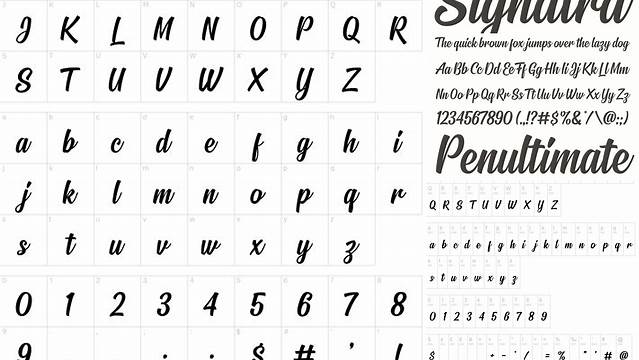
Signatra Font: Free Download And Usage Guide
Hey guys! Are you on the hunt for that perfect signature font to add a touch of elegance and personality to your designs? Well, you've come to the right place! In this comprehensive guide, we're diving deep into the world of Signatra font free download, exploring everything you need to know about this stylish typeface and how to get your hands on it. From its versatile uses to its stunning aesthetics, Signatra is a font that can truly elevate your creative projects. Whether you're designing logos, wedding invitations, or even just jazzing up your website, a great signature font like Signatra can make all the difference. We'll walk you through what makes Signatra so special, where you can find it for free (and legally!), and how to use it effectively in your designs. So, buckle up and let's get started on this font-astic journey! Remember, the right font can transform a good design into a great one, and Signatra might just be the secret ingredient you've been looking for. We'll also touch on some tips and tricks for ensuring you're using the font in the best possible way, avoiding common pitfalls and maximizing its impact. By the end of this guide, you'll be a Signatra pro, ready to unleash its potential in all your creative endeavors. So, let’s jump in and discover how Signatra font free download can revolutionize your design game!
What Makes Signatra Font So Special?
So, what exactly makes Signatra font stand out from the crowd? There are several key factors that contribute to its popularity and versatility. First and foremost, Signatra boasts a beautifully flowing, script-like design that mimics the elegance of handwritten signatures. This gives it a personal and sophisticated touch, making it ideal for projects that require a touch of class and authenticity. Think about it – a well-crafted signature font can instantly convey trust, style, and attention to detail. This is particularly crucial in branding, where the visual identity speaks volumes about the company or individual it represents. The flowing curves and unique letterforms of Signatra create a memorable and impactful impression. Beyond its aesthetics, Signatra font is also incredibly versatile. It works well in a variety of contexts, from formal invitations and business cards to social media graphics and website headers. This adaptability is a huge advantage, as it allows you to maintain a consistent brand identity across different platforms and mediums. Imagine using Signatra for your logo, your email signature, and even your marketing materials – the cohesive look and feel will strengthen your brand recognition and create a professional image. Furthermore, Signatra’s legibility is another factor contributing to its appeal. While some script fonts can be difficult to read, especially in smaller sizes, Signatra strikes a perfect balance between style and clarity. This ensures that your message is not only visually appealing but also easily understood. Whether you're using it for body text or headlines, the readability of Signatra font remains consistent. This is especially important in web design, where user experience is paramount. Nobody wants to squint and struggle to decipher a fancy font! Finally, the emotional connection that Signatra evokes is something to consider. A well-designed script font can elicit feelings of warmth, nostalgia, and trustworthiness. These emotions can be powerful tools in marketing and communication, helping you to connect with your audience on a deeper level. Signatra, with its elegant strokes and personal touch, has the potential to create a lasting impression and build strong relationships with your clients or customers. So, it’s clear that the unique combination of style, versatility, and emotional resonance is what truly sets Signatra font apart.
How to Use Signatra Font Effectively in Your Designs
Okay, so you've got your Signatra font (or a similar signature font) downloaded and ready to go. Now what? It’s crucial to understand how to use it effectively in your designs to truly maximize its impact. A beautiful font can be easily misused if not handled with care. Let’s dive into some key tips and tricks. Firstly, consider the context of your design. Signatra is a great choice for projects that need a touch of elegance and personal flair, such as wedding invitations, logos, and branding materials. However, it might not be the best fit for more formal or technical documents. Think about the message you're trying to convey and whether the font aligns with your overall aesthetic. For example, a law firm's website might not benefit from a highly stylized signature font, while a wedding photography business could absolutely thrive with it. Secondly, think about legibility. While Signatra is generally quite readable, it's still a script font, which means it can become challenging to decipher in smaller sizes or when used in large blocks of text. Use it sparingly, and always ensure that your text remains clear and easy to read. Avoid using Signatra for body text in long-form content. Instead, reserve it for headings, titles, and short phrases where its style can shine without compromising readability. Pairing fonts effectively is also crucial. Signatra works best when paired with a clean, simple sans-serif or serif font. This creates a visual contrast that makes the signature font stand out while maintaining overall readability. Think of Signatra as the star of the show, and your supporting font as the reliable sidekick. Some popular pairings include Signatra with fonts like Open Sans, Montserrat, or Raleway. Experiment with different combinations to find what works best for your specific project. Spacing and kerning are your friends! Pay close attention to the spacing between letters and words when using Signatra. Script fonts often require some manual adjustments to ensure they look their best. Adjusting the kerning (the space between individual letters) can prevent awkward gaps and improve the overall flow of the text. Finally, don’t overdo it. Using too much of a script font like Signatra can make your design feel cluttered and overwhelming. Less is often more. Use it strategically to highlight key elements and add a touch of personality, but avoid using it for every single text element in your design. By following these tips, you can harness the power of Signatra font and create stunning designs that truly stand out. Remember, the goal is to use it in a way that enhances your message and aesthetic without sacrificing legibility or clarity. Happy designing!
Common Mistakes to Avoid When Using Signature Fonts
Using signature fonts, like Signatra font, can add a touch of elegance and personality to your designs, but it’s also easy to fall into common pitfalls if you're not careful. Let's talk about some mistakes to avoid so you can make the most of your chosen font. Overusing the font is a big one. As we mentioned earlier, signature fonts are best used sparingly. Imagine a whole website written in a script font – it would be a nightmare to read! Reserve signature fonts for headings, logos, and other short bursts of text. They’re great for making a statement, but not for conveying large amounts of information. Using a signature font for body text is a surefire way to make your content inaccessible and frustrating for your audience. Another common mistake is ignoring legibility. Some script fonts are so stylized that they become difficult to read, especially in smaller sizes. Always prioritize clarity over aesthetics. If your audience can’t easily read your message, the beautiful font won’t matter. Test your font in different sizes and contexts to ensure it remains legible. Ask for feedback from others to get a fresh perspective. Pairing signature fonts with the wrong fonts can also be a disaster. A busy or clashing font pairing can make your design look amateurish and confusing. Stick to simple, clean fonts for body text and other supporting elements. Sans-serif fonts like Open Sans or Montserrat are often a safe bet. The contrast between the elegant signature font and the clean sans-serif will create a visually appealing and balanced design. Not paying attention to kerning and spacing is another frequent error. Script fonts often require manual adjustments to the spacing between letters and words. Poor kerning can create awkward gaps and make your text look uneven. Take the time to fine-tune the spacing to ensure a smooth and professional look. Most design software allows you to adjust kerning and tracking (the overall spacing between letters), so experiment until you get it right. Ignoring the overall context of your design is also a mistake. A signature font might look fantastic on a wedding invitation, but it would be completely out of place on a technical report. Consider your target audience and the message you’re trying to convey. Choose a font that aligns with the tone and style of your project. Finally, don’t forget about licensing! Always ensure that you have the necessary permissions to use a font, especially for commercial projects. Downloading fonts from unofficial sources can lead to legal trouble. Stick to reputable font foundries and websites, and always read the licensing terms carefully. By avoiding these common mistakes, you can use Signatra font and other signature fonts effectively to create stunning and impactful designs. Remember, it’s all about balance, clarity, and context. Happy designing!
So, there you have it, guys! A comprehensive guide to Signatra font free download and how to use it effectively in your designs. We've covered everything from what makes Signatra so special to where you can find it legally and the common mistakes to avoid. Hopefully, you’re now equipped with the knowledge and confidence to start incorporating this elegant typeface into your projects. Remember, a signature font like Signatra can add a touch of personality and sophistication to your designs, but it’s crucial to use it wisely. Think about the context, prioritize legibility, and pair it with the right fonts to create a cohesive and visually appealing look. Don't forget to check the licensing terms before using any font, especially for commercial purposes. And most importantly, have fun experimenting! Design is a creative process, and the best way to master a new font is to play around with it and see what works best for your style and projects. Whether you’re designing logos, invitations, websites, or social media graphics, Signatra can be a valuable tool in your design arsenal. Just remember to use it sparingly and strategically to maximize its impact. We hope this guide has been helpful and informative. Now go forth and create some amazing designs with your newfound font knowledge! If you have any questions or tips of your own, feel free to share them in the comments below. We’re always excited to hear from fellow design enthusiasts. And who knows, maybe you'll even discover a new favorite signature font along the way! So, that’s a wrap on our Signatra font free download guide. Happy designing, and we can't wait to see what you create!